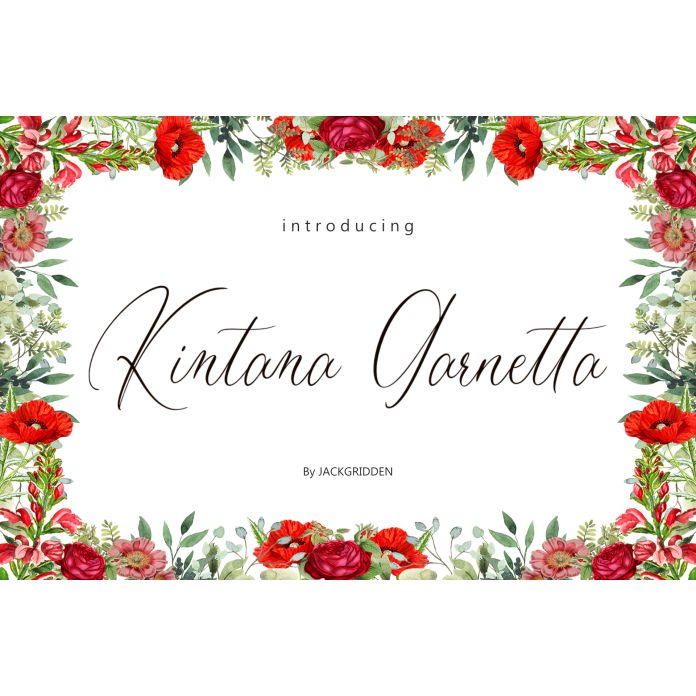
Kintana Garnetta: Embrace elegance and sophistication with Kintana Garnetta, a beautifully crafted font that blends modern aesthetics with timeless charm. This versatile typeface features graceful curves and distinct serifs, making it perfect for a variety of design projects, from branding and packaging to editorial layouts and invitations.
With its unique character set and attention to detail, Kintana Garnetta brings a touch of luxury to any design. Whether you’re creating a stylish logo, a chic website, or an eye-catching poster, this font stands out with its refined style and readability.
Available in multiple weights, Kintana Garnetta adapts effortlessly to your creative needs, ensuring your designs convey beauty and sophistication. Elevate your typography with Kintana Garnetta, where modern design meets classic elegance.